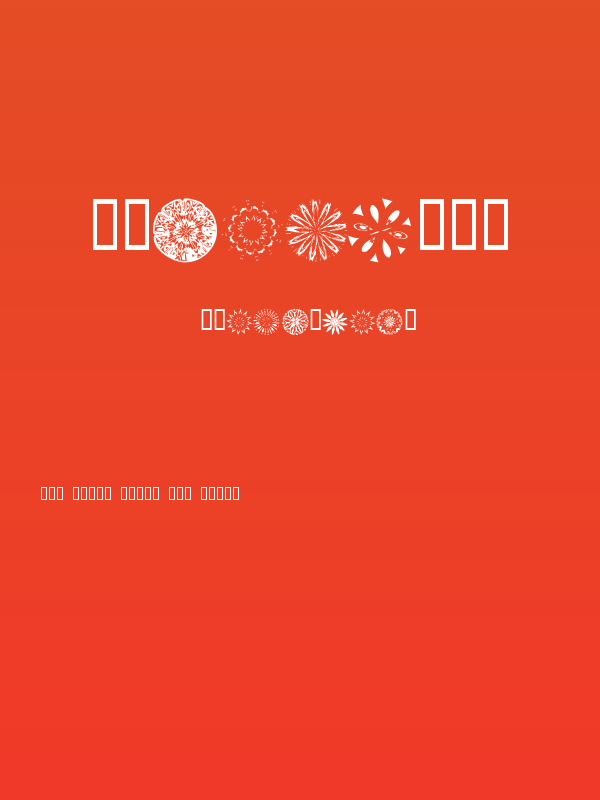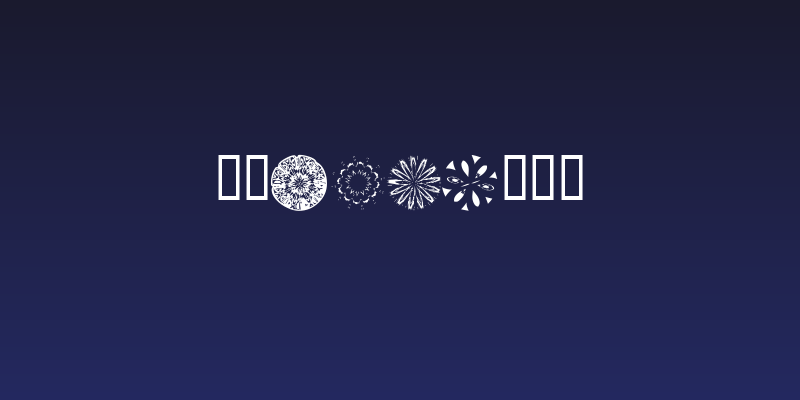
Trinkets2 Font
Trinkets2 Description
A decorative dingbat font featuring a variety of intricate, ornamental starburst and medallion-like shapes, each with unique textures and patterns. The glyphs are highly detailed and visually complex, suitable for embellishing designs.
| Use Case | Decorative accents, borders, and graphic elements. |
| Proposed Projects | Invitations, certificates, scrapbooking, decorative borders, digital stickers, and graphic embellishments. |